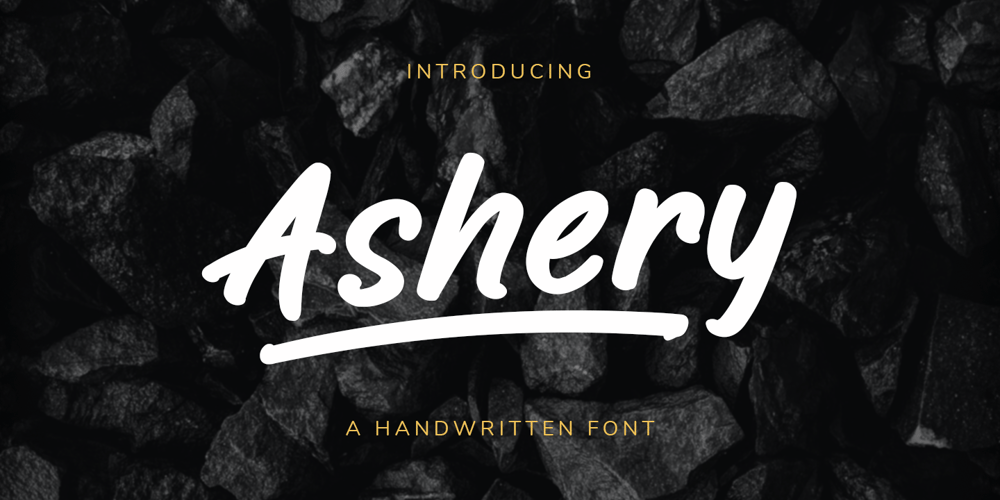
Ashery Font Family was designed by Agam Rahmadan and published by Viswell. Ashery contains 1 styles and family package options. Ashery is a handwritten font, made with a natural marker brush. This font will be suit for your design project such as branding, logo design, packaging, quotes, and many more.